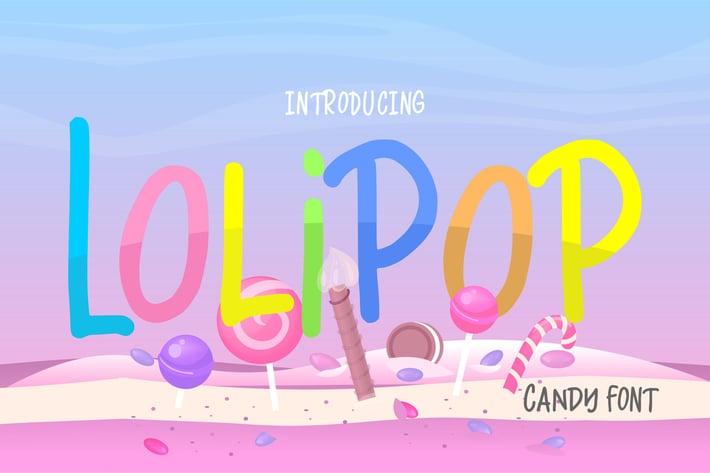
Lolipop | Candy Funny Font
Lolipop | Candy Funny Font with a Script style, So beautiful on invitation like greeting cards, branding materials, business cards, quotes, posters, and more!